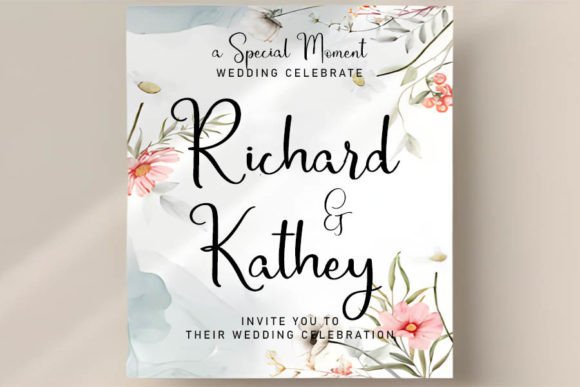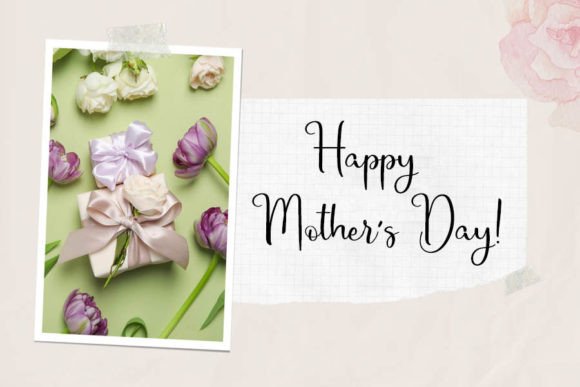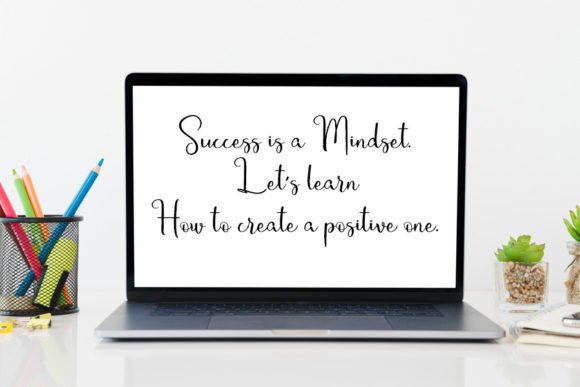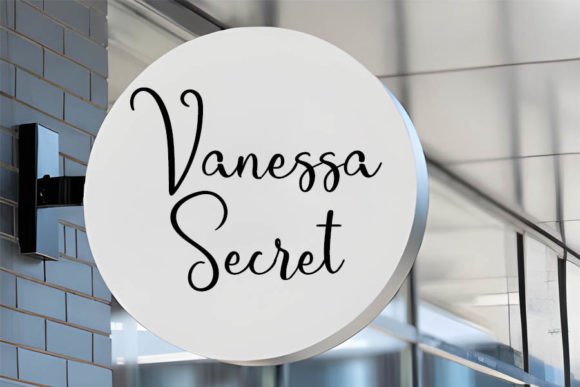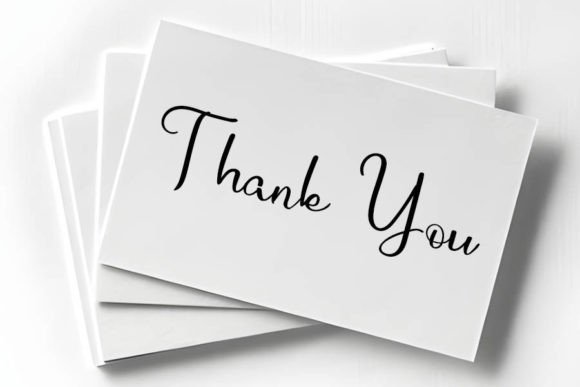
Adding a Touch of Elegance to Your Holiday Designs
There’s something special about designing holiday cards and invitations – the excitement of capturing the perfect sentiment, the joy of creating something beautiful for loved ones. For me, it all starts with the right font. And that’s where the Better Holiday Font comes in – a romantic and elegant handwritten font that adds a dainty, joyful touch to any design.
Whether you’re planning a wedding, a holiday party, or simply want to send a thoughtful greeting, the Better Holiday Font is the perfect choice. Its PUA encoded glyphs and swashes make it easy to access and customize, giving you the freedom to create truly unique designs. As a designer, you know how valuable a versatile and beautiful font can be – and that’s exactly what the Better Holiday Font delivers.
Better Holiday Font Key Features
- Font Family: Better Holiday Font is a custom-designed font family consisting of 6 styles (Thin, Light, Regular, Medium, Bold, and Black) to cater to various design needs.
- Character Set: Includes a wide range of characters, including Latin, Cyrillic, and Greek alphabets, as well as punctuation marks and symbols.
- Unique Characteristics: The font features a unique blend of traditional and modern elements, with intricate details and ornaments that evoke a festive atmosphere, making it ideal for holiday-themed designs.
Better Holiday Font Review
Overall, I think the Better Holiday Font is a solid choice for those looking to add some festive flair to their designs. Here are some things that I think work well:
- ✨ It’s incredibly versatile – you can use it for everything from holiday cards to gift tags and even social media graphics.
- ✨ The font has a nice balance of elegance and playfulness, making it suitable for a wide range of design styles.
- ✨ It’s highly customizable, with a variety of styles and weights to choose from.
However, I do have a few concerns:
- ⚠️ The font can be a bit too ornate in some places, which may make it difficult to read for those with vision impairments.
- ⚠️ Some of the styles can feel a bit overused, which may make your design look like it’s been done before.
- ⚠️ The font doesn’t come with a lot of pre-made templates, which can make it harder to get started.
Overall, I think the Better Holiday Font is a good choice for designers who are looking to add some holiday cheer to their work. Just be aware of its limitations and take the time to customize it to your needs.
Tips for Getting the Most Out of Better Holiday Font
Use Better Holiday Font to add a festive touch to your holiday designs.
Pair it with bold, bright colors to create a festive look.
Better Holiday Font is perfect for:
Creating holiday greeting cards and invitations.
Designing festive social media posts and graphics.
Adding a holiday touch to your website or blog.